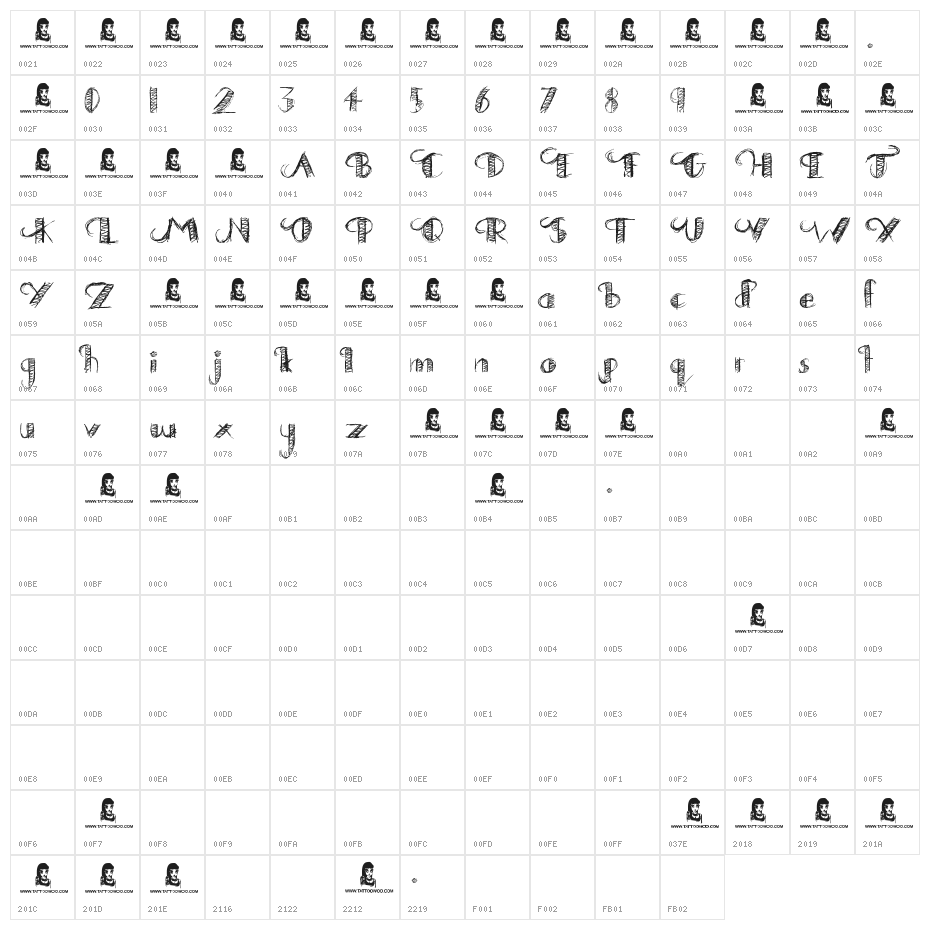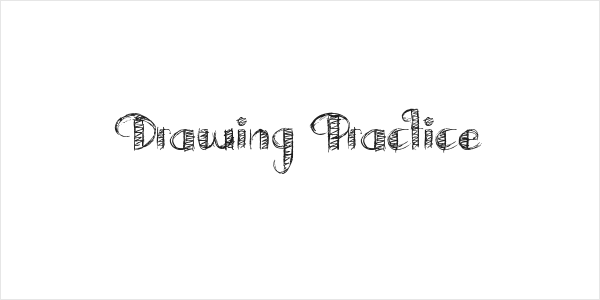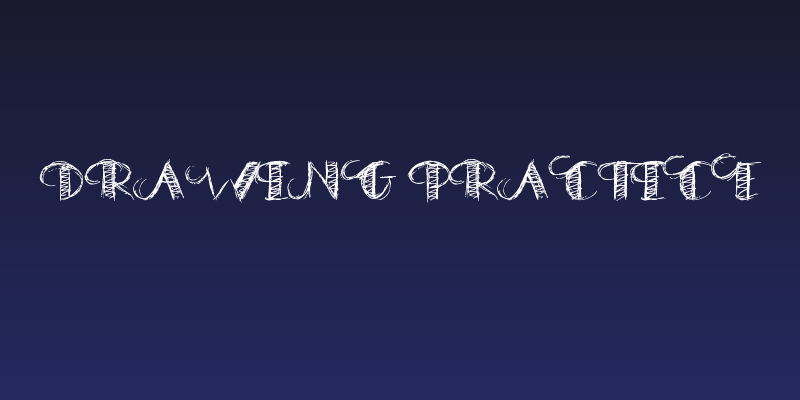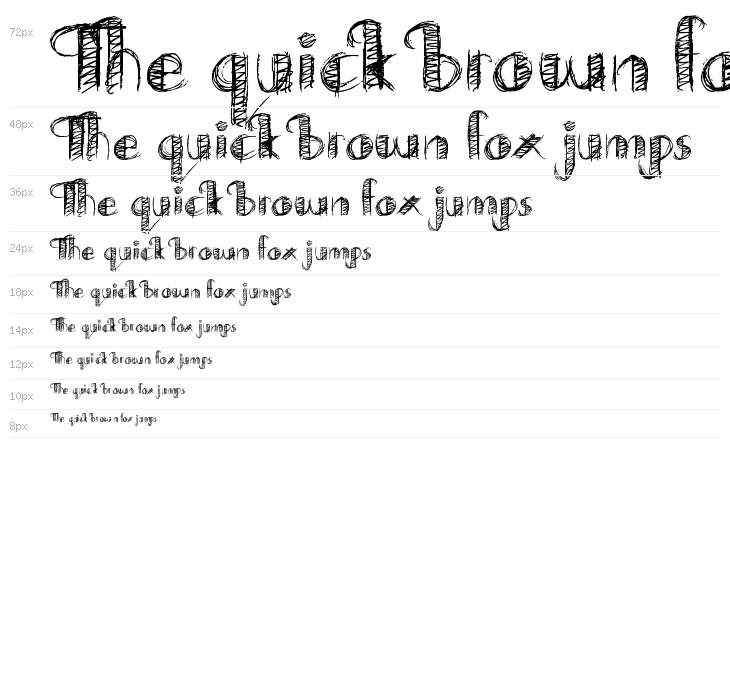
Drawing Practice Font
Drawing Practice Description
This font features a unique, hand-drawn style with a sketch-like appearance. Each character is crafted with a series of overlapping strokes, creating a textured and dynamic look. The uppercase and lowercase letters maintain a consistent style, with exaggerated curves and flourishes that add a whimsical touch. Numbers and special characters follow the same artistic approach, ensuring a cohesive design throughout. The font's playful and artistic nature makes it stand out, offering a creative and informal vibe.